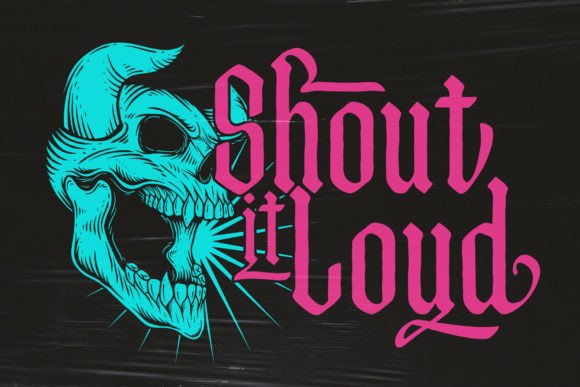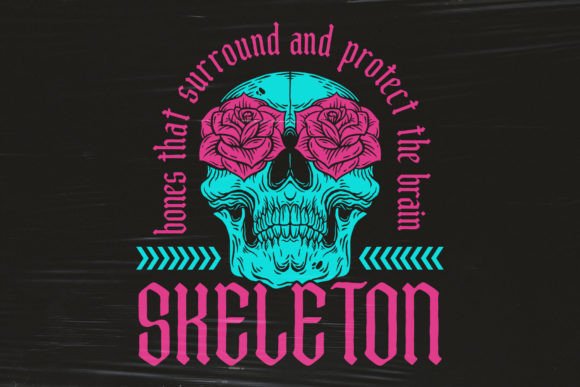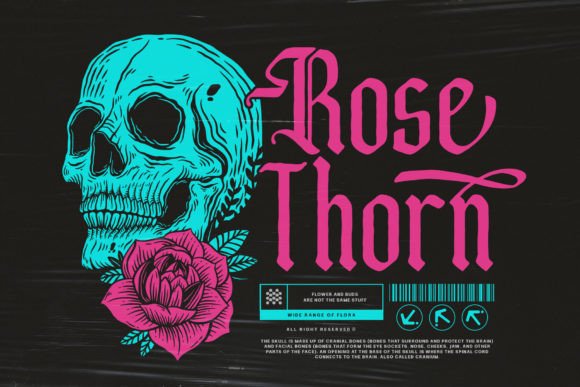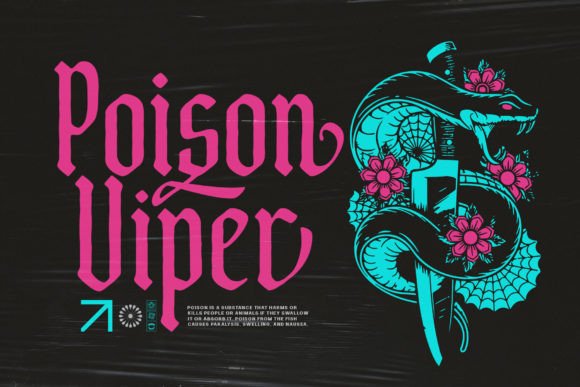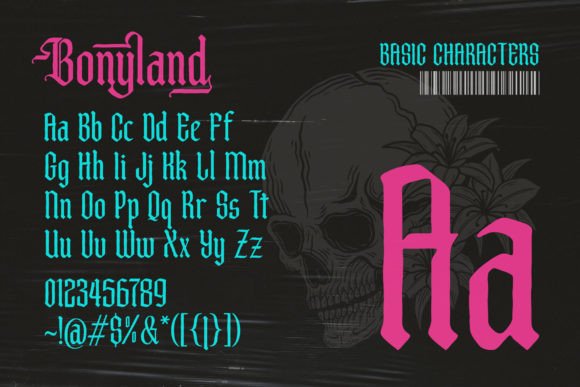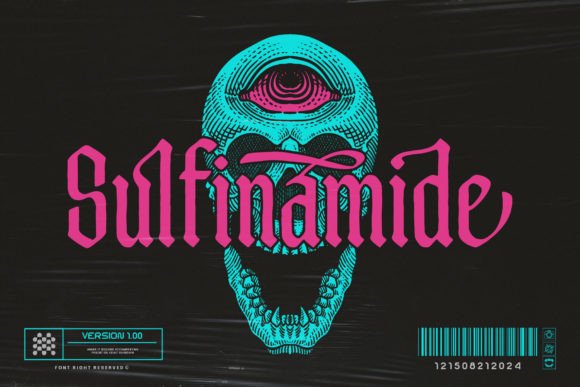
Unleashing the Power of Vintage Typography: Introduction to Bonyland Font
Have you ever stumbled upon an old, worn-out book in a dusty attic, and as you delicately open its yellowed pages, the words seem to leap out at you with a raw, untamed energy? That’s the magic of vintage typography, and it’s exactly what the Bonyland Font embodies. This distinctive typeface is a masterclass in combining the rugged elegance of old-world craftsmanship with a modern edge, making it a design resource that’s hard to resist.
As a designer, you’re constantly on the lookout for that one special font that can elevate your creative project and make it truly unforgettable. The Bonyland Font is that game-changer. With its bold blackletter style and rough, timeworn texture, it’s the perfect choice for projects that demand an air of boldness and authenticity.
Key Features of Bonyland Font
- Unique, hand-drawn design for a creative project, perfect for adding a personal touch to your work
- Includes a range of characters, including uppercase and lowercase letters, numbers, and punctuation marks
- Perfect for use in graphic design, digital art, and other creative projects where a unique font is desired
Honest Review: Bonyland Font
As a designer, I’m always on the lookout for high-quality design resources to elevate my creative projects. Recently, I had the chance to try out the Bonyland Font, and I’m excited to share my thoughts with you.
What works well: ✨ The Bonyland Font is incredibly versatile and features a unique, quirky design that’s perfect for adding some personality to your projects. I love that it comes in a range of weights and styles, making it easy to customize to suit your needs. The font also has a transparent background, which is a big plus for designers who like to keep their designs clean and simple.
- High-quality design: The font is incredibly well-designed and looks great at various sizes and resolutions.
Limitations: ⚠️ One thing to keep in mind is that the font may not be suitable for all types of projects. The quirky design may not be the best fit for formal or professional designs, so be sure to use your discretion.
Overall impression: I’m really impressed with the Bonyland Font and would definitely recommend it to designers looking for a unique and high-quality design resource. It’s perfect for creative projects that need a little extra flair, and the free download makes it an excellent value for the price.
Tips for Getting the Most Out of Bonyland Font
Use the Bonyland Font in conjunction with other design elements to create a unique and creative project. Experiment with different font sizes and styles to add visual interest to your design.
Common Use Cases for Bonyland Font
The Bonyland Font is ideal for use in creative projects such as graphic design, web design, and digital art. It is also suitable for use in presentations, reports, and other business documents that require a high-quality and professional font.